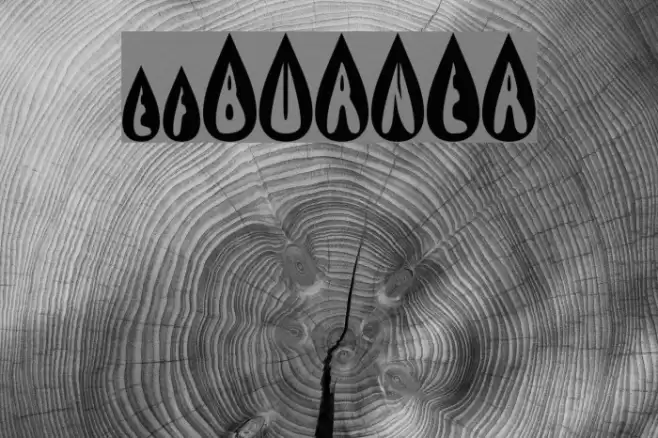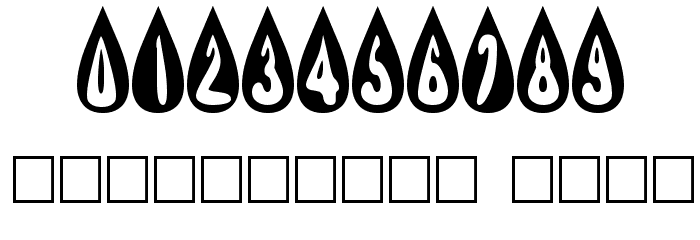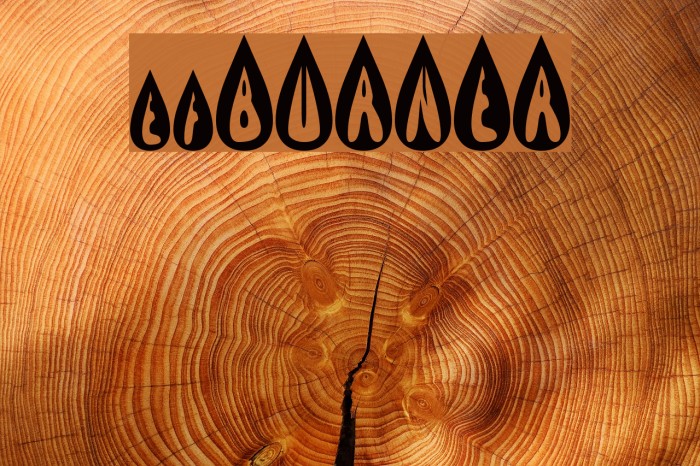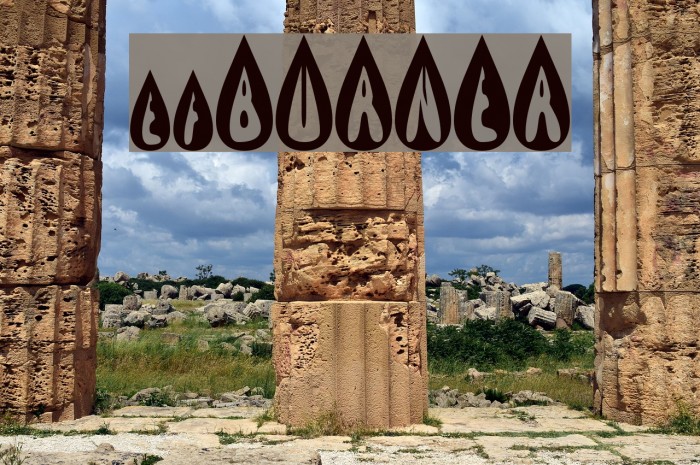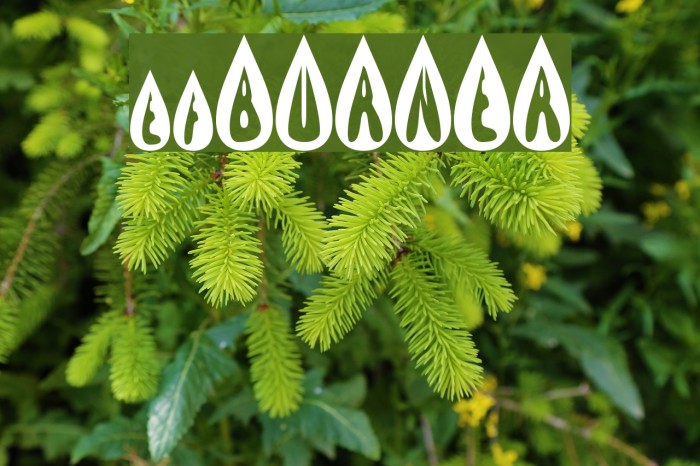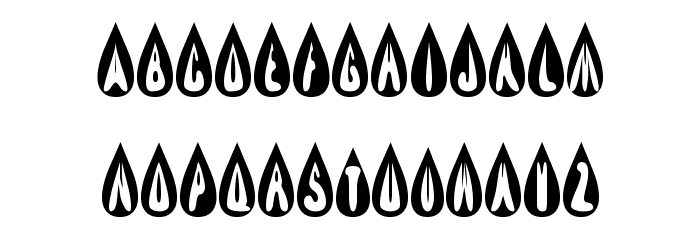
efBURNER Font
efBURNER Description
This font features a unique and bold design where each character is encapsulated within a teardrop shape. The letters and numbers are stylized with a high contrast between thick and thin strokes, giving them a dramatic and eye-catching appearance. The uppercase and lowercase letters maintain a consistent style, with the lowercase being slightly smaller but equally bold. The numbers follow the same design principles, ensuring uniformity across all characters. This font's distinct style makes it ideal for projects that require a strong visual impact.
A bold, teardrop-shaped font with high contrast and dramatic style from Decorative fonts.